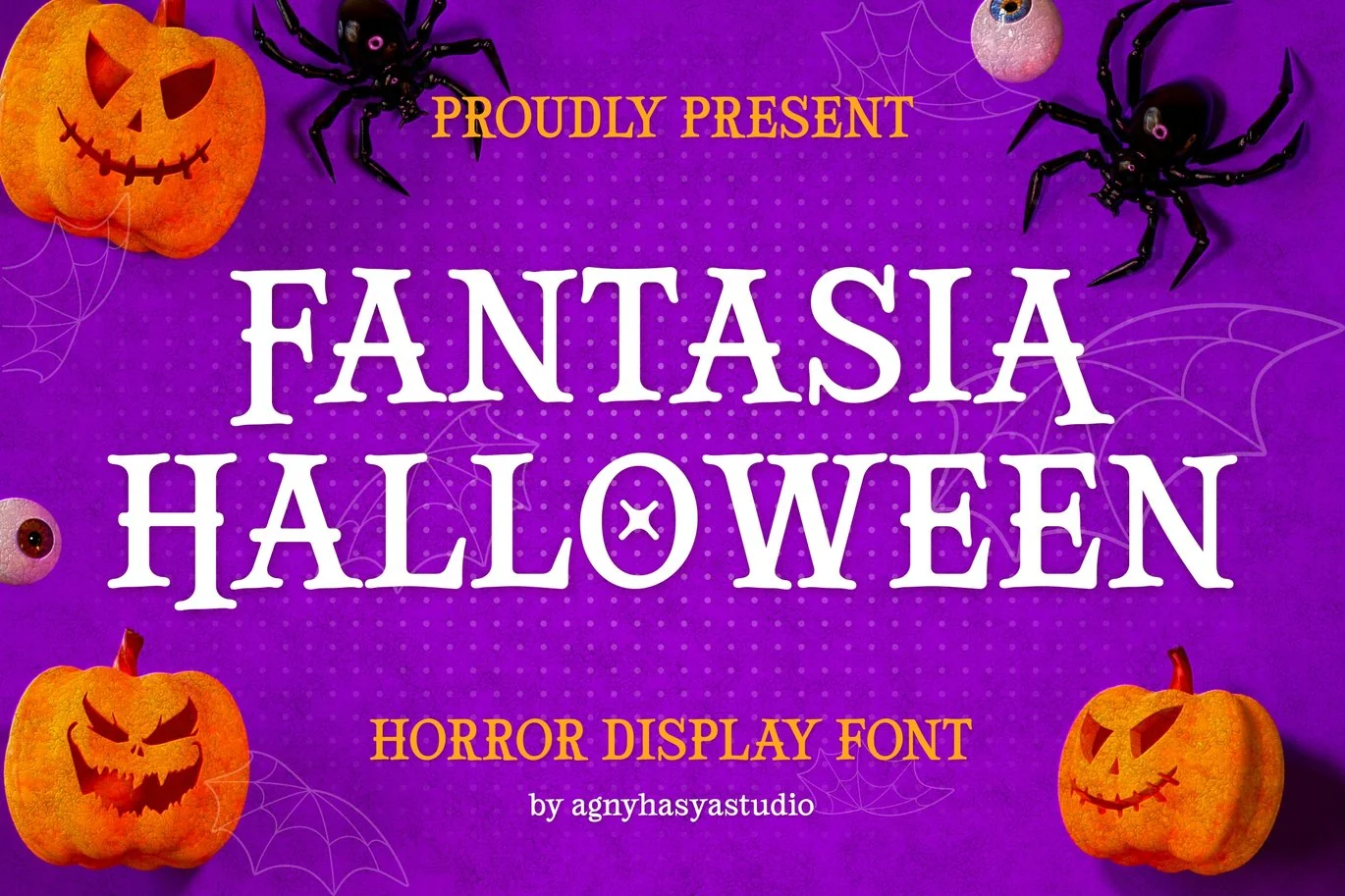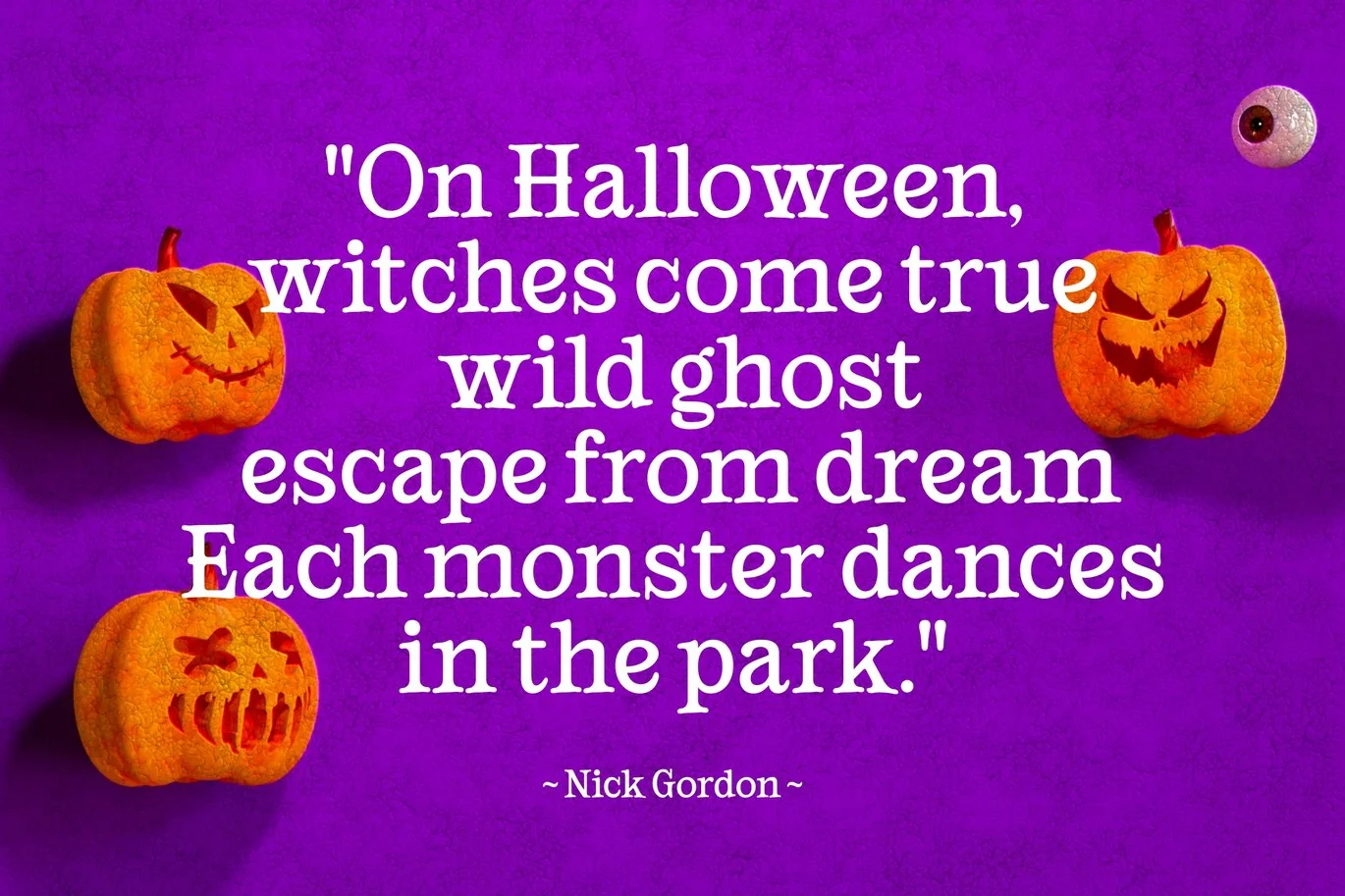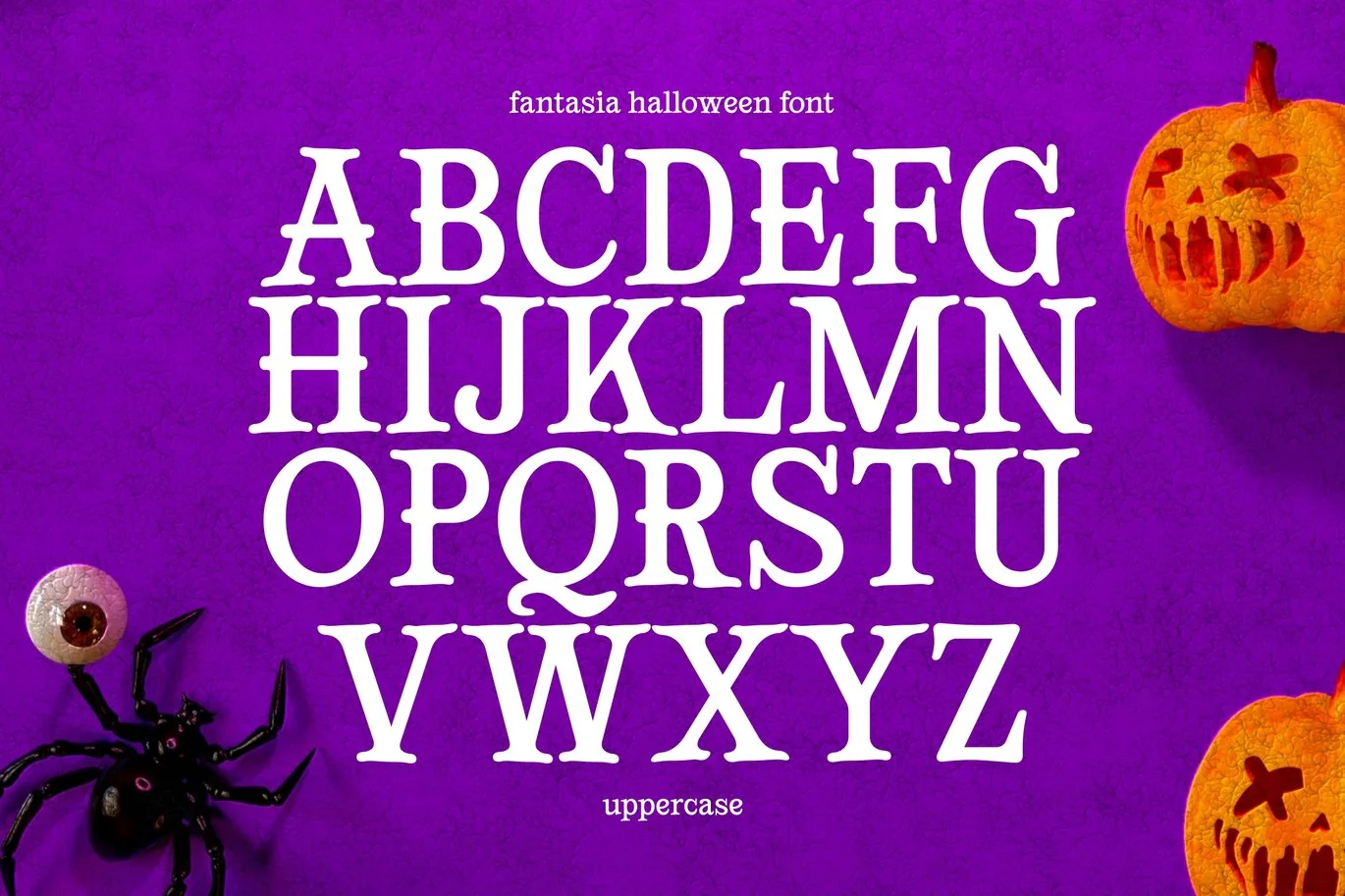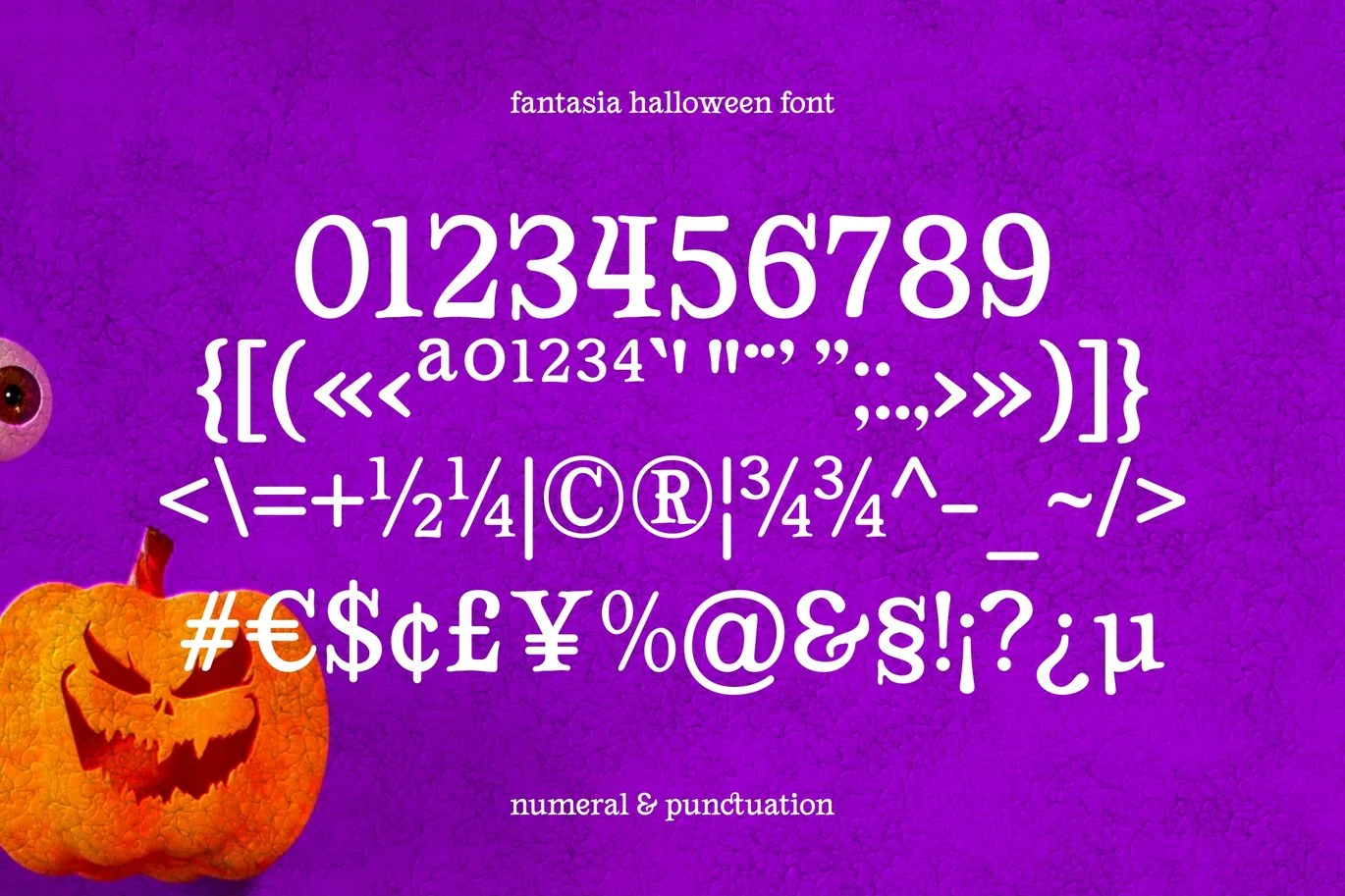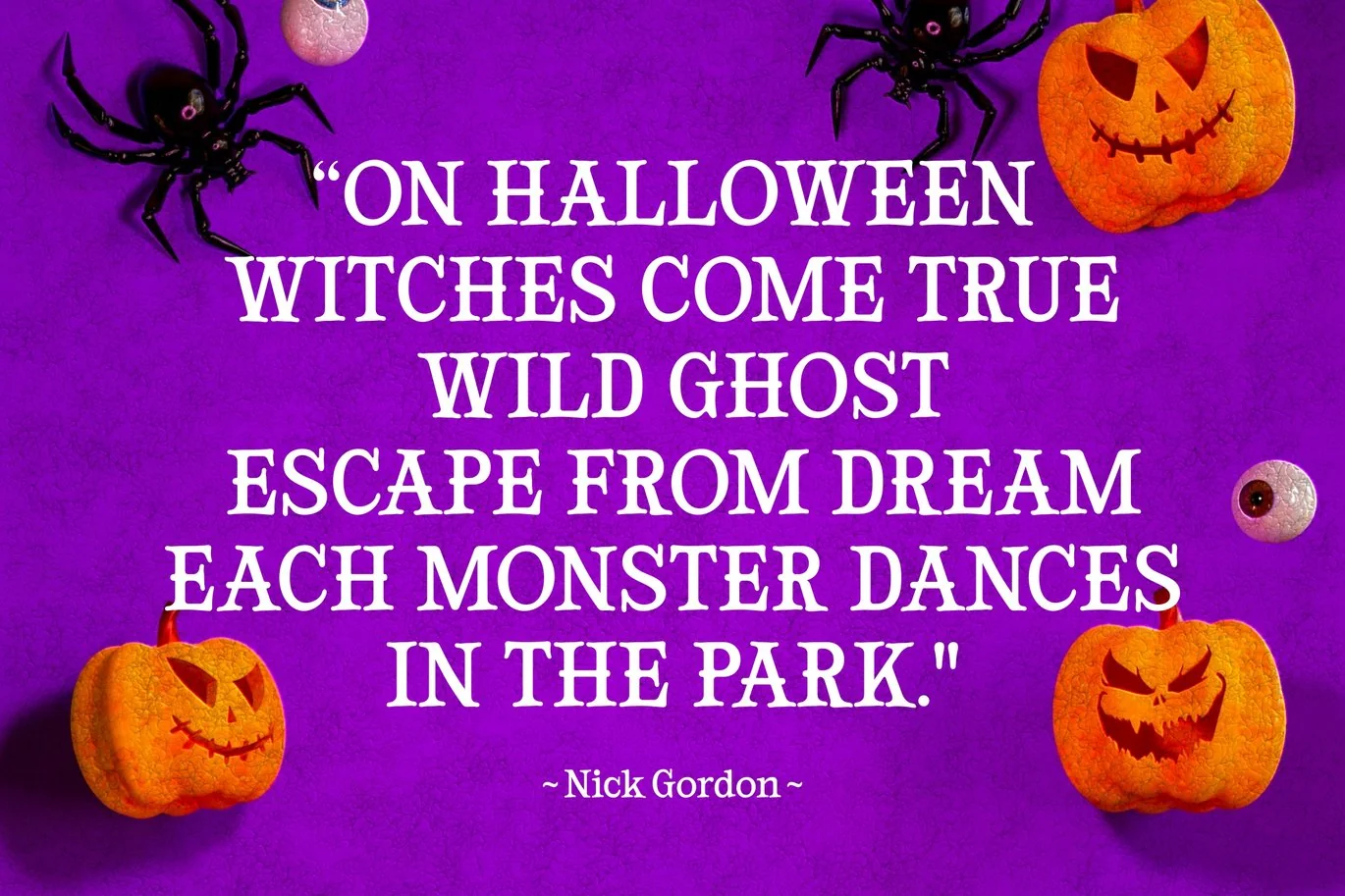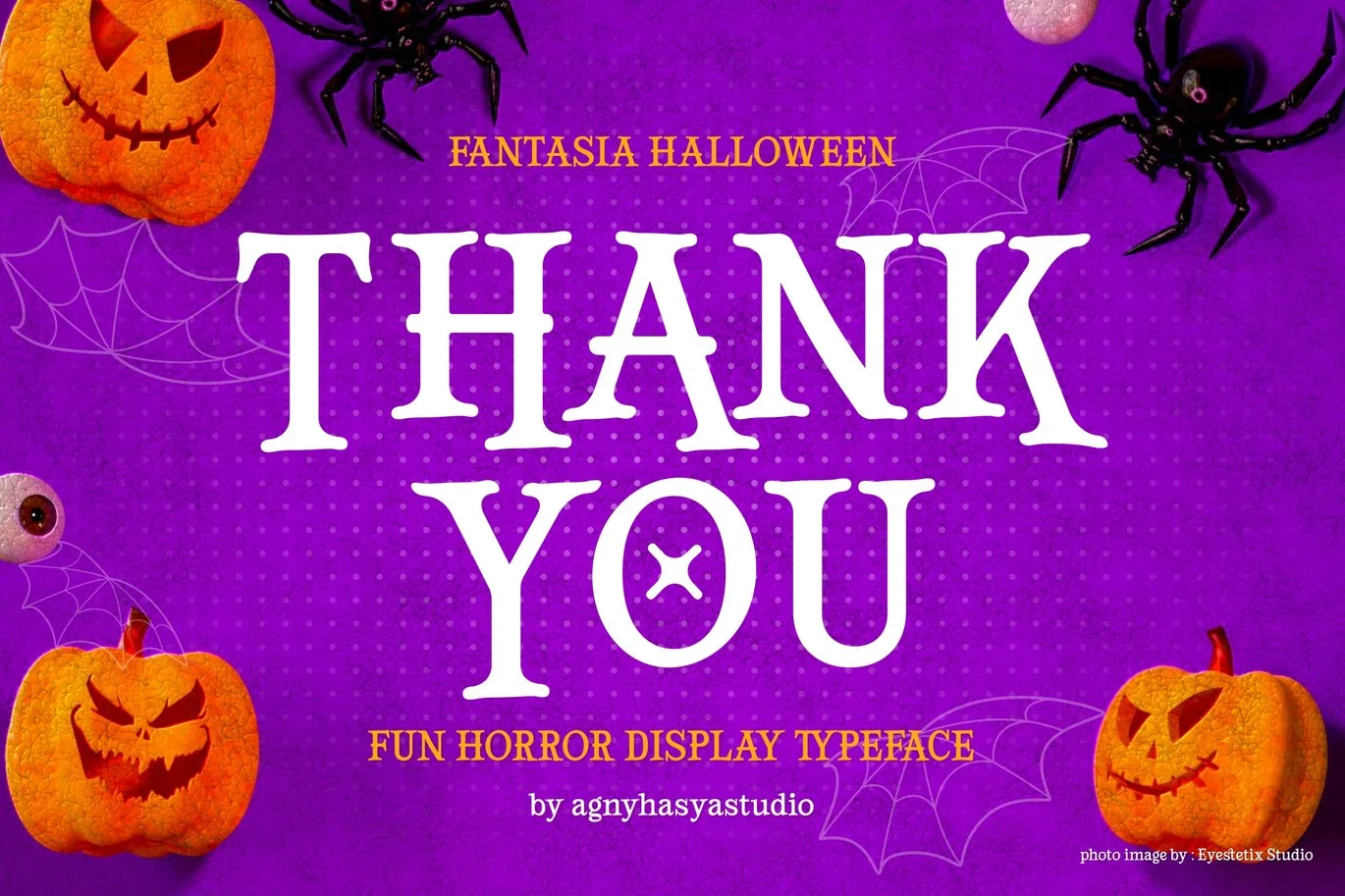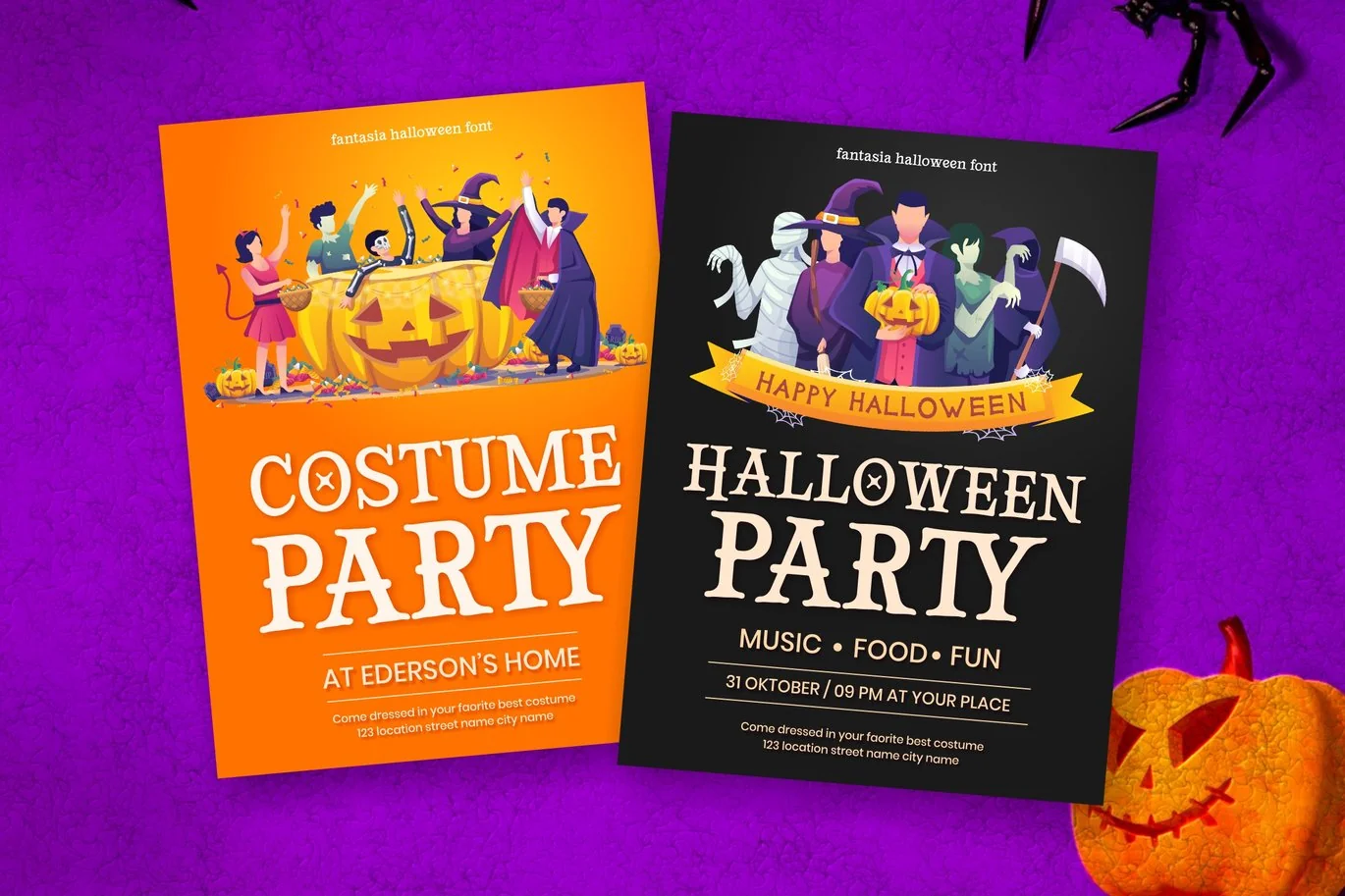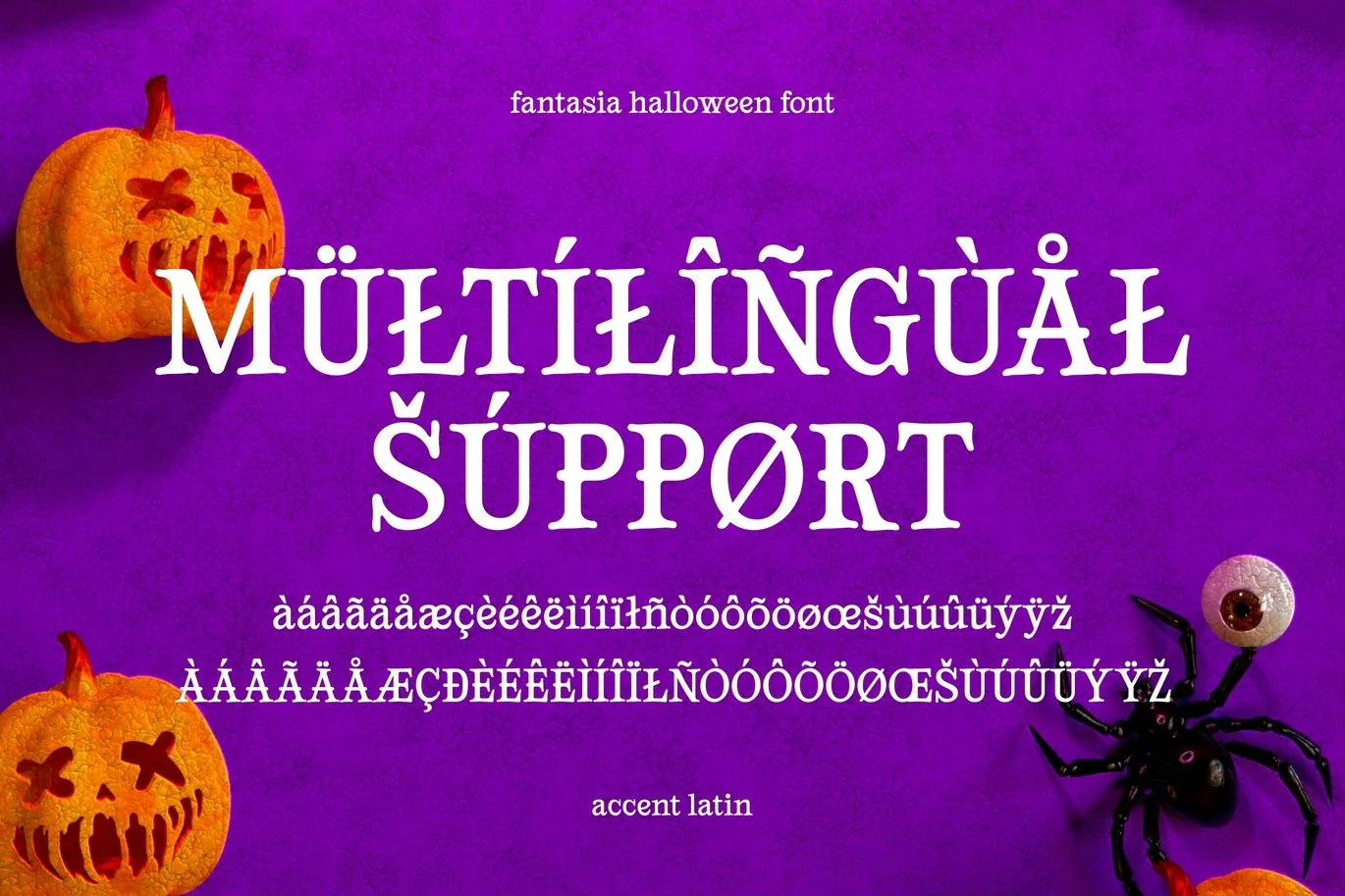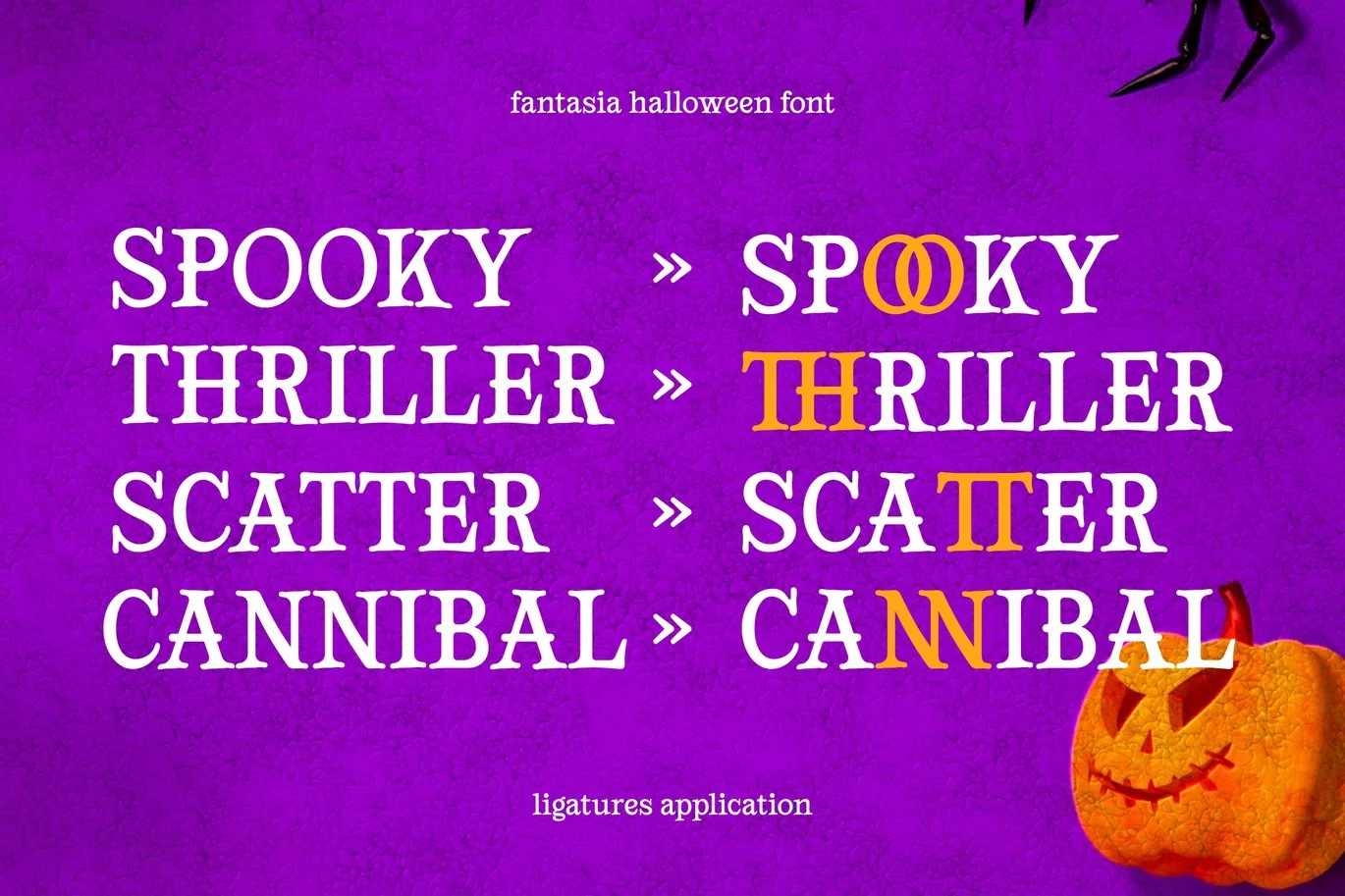
Fantasia Halloween – A Horror Typeface
Proudly Present Fantasia Halloween – A Horror Typeface
Fantasia Halloween Is a Display Typeface With Horror, Fun, and Playful Vibes. Come In 2 (Two) Styles (Regular and Slant) And Is Created With Some Alternate and Ligature.
Perfect for Your Design Projects Like Advertising, Branding, Product Designs, Magazine Designs, Book/Cover Title Designs, Art Quotes, Special Events, Labels, Product Packaging, and More.